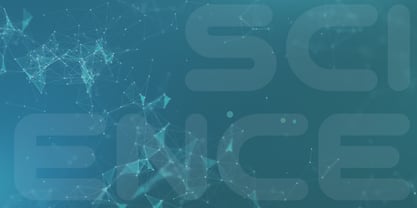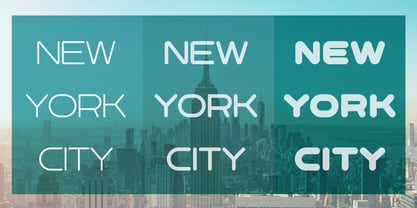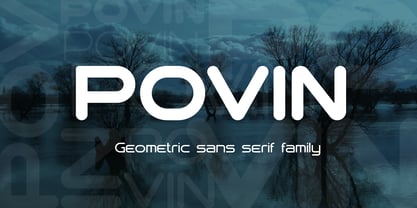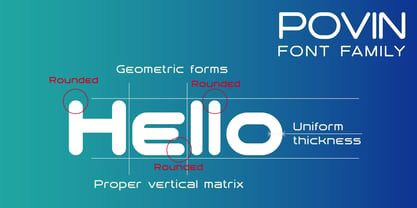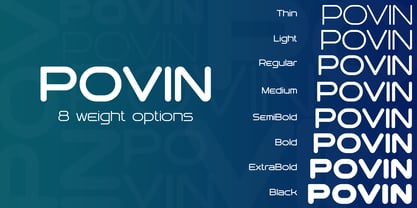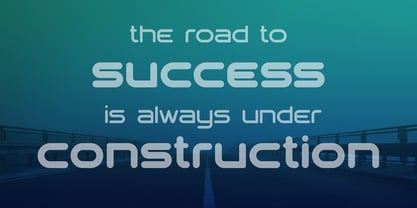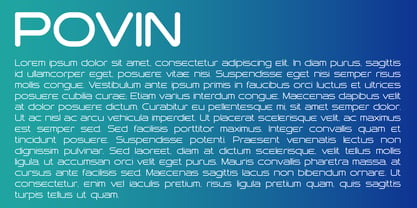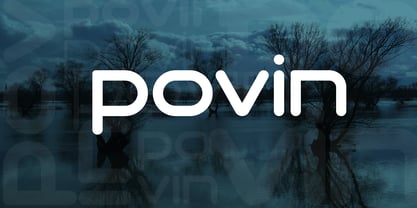
Povin
by VladB
The Povin Font Family was designed by Volodymyr Berla and published by VladB. Povin contains 8 styles and family package options. More about this family
POVIN is a contemporary sans serif geometric font characterized by its rounded edges. It features a comprehensive set of upper and lower case characters, supporting Latin, Cyrillic, Latin Eastern Europe, Turkish, Baltic, and more, with over 500 symbols available. The POVIN family offers 8 distinct thickness styles, categorized into 2 subgroups based on thickness: M (middle) and L (large), each containing 4 variations. This versatile font is ideal for branding, poster design, graphic products, and word processing, making it a valuable addition to any creative project.
Designers: Volodymyr Berla
Foundry: VladB